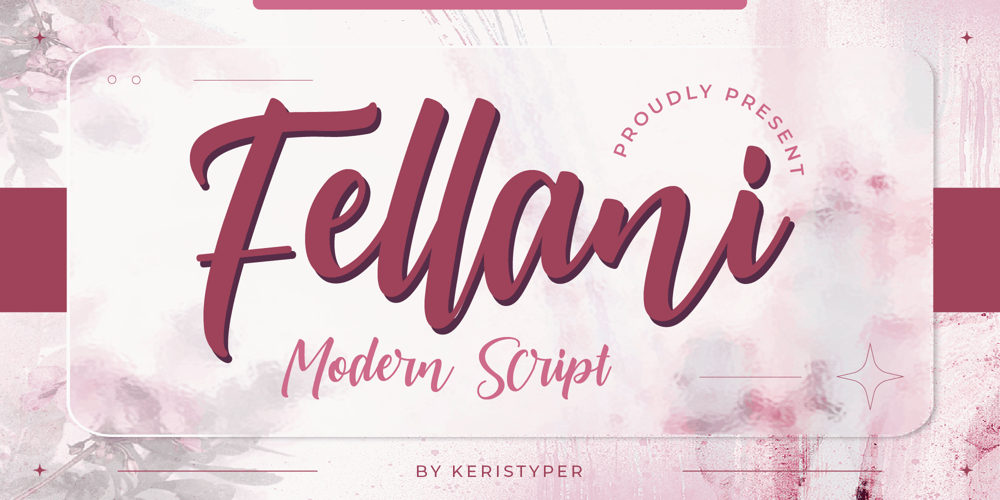
Fellani Font Family was designed by Tezar Tantular and published by Keristyper Studio. Fellani contains 1 styles and family package options. Fellani is a font created with a special touch to give a beautiful and attractive look. . This font is good for logo design, Social media, Movie Titles, Books Titles, short text even long text letters, and good for your secondary text font with sans or serif.**Featured:*** Standard Uppercase & Lowercase* Numeral & Punctuation* Multilingual : ä ö ü Ä Ö Ü ß ¿ ¡* Alternate & Ligature* PUA encodedWe recommend programs that support the OpenType feature and the Glyphs panel such as Adobe applications or Corel Draw. so you can use all the variations of the glyphs.Hope you enjoy our fonts!